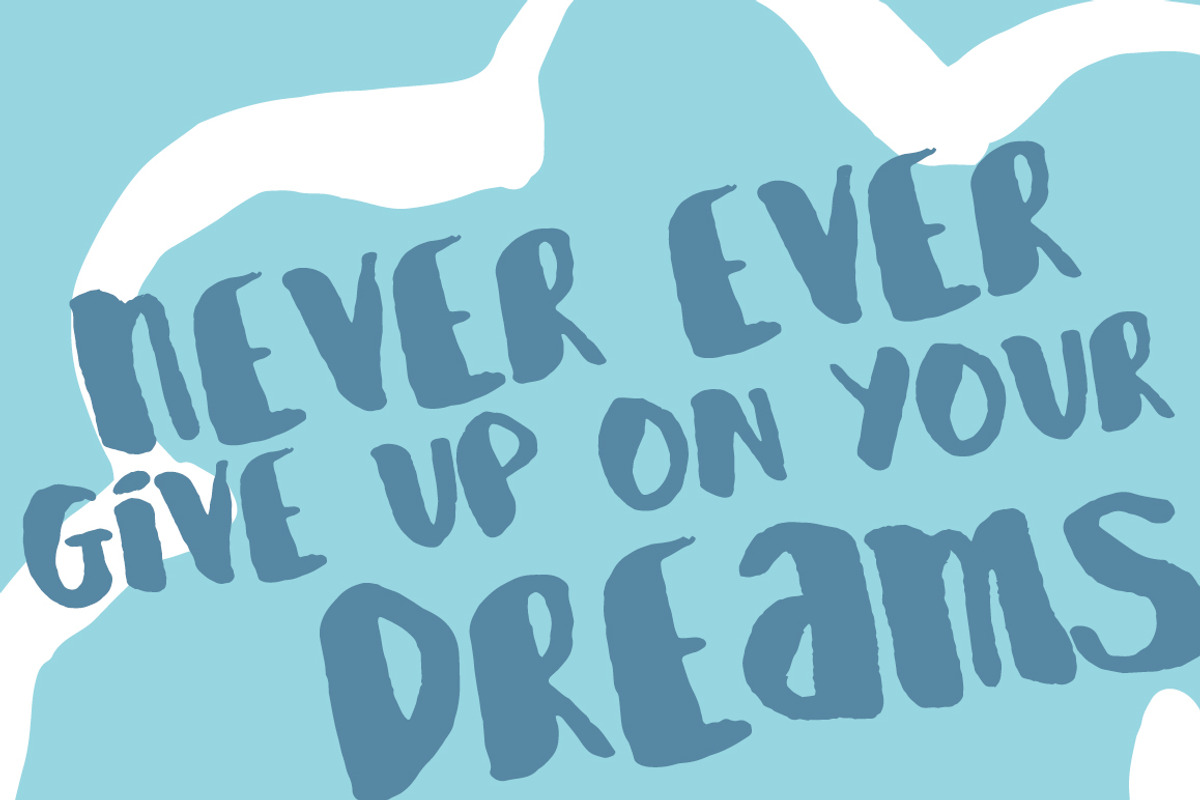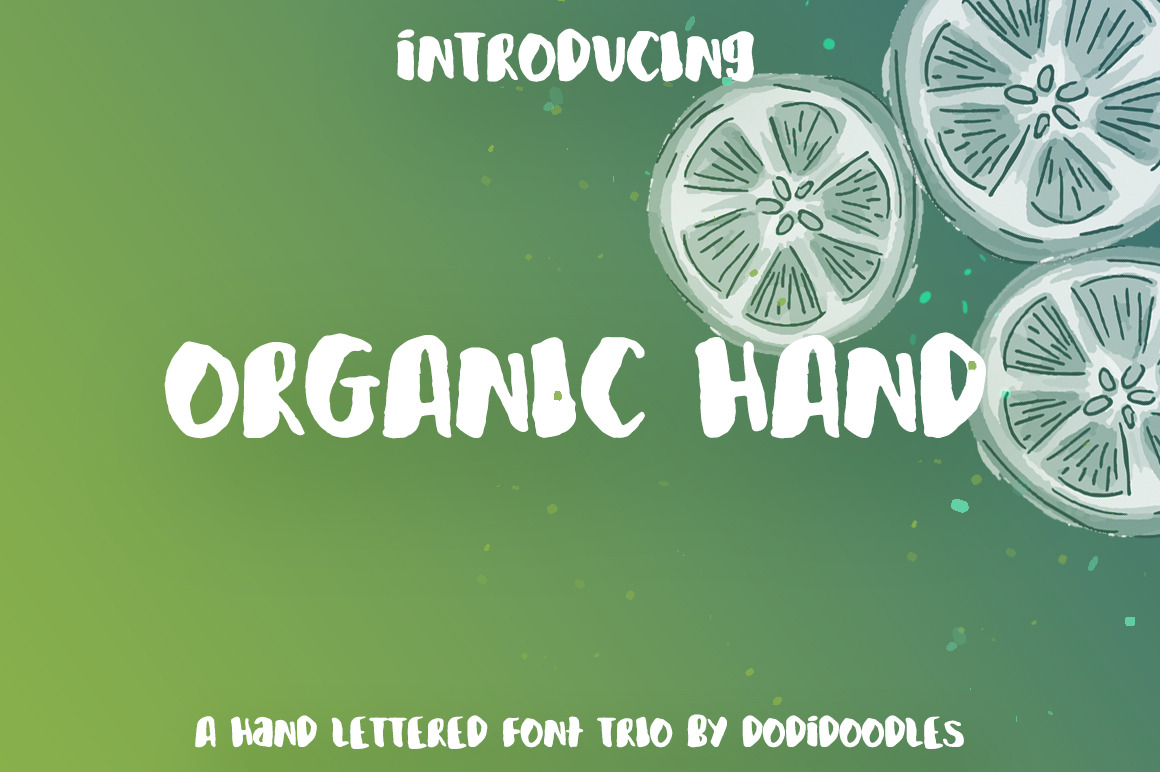
Organic Hand Font Trio
I'm so excited to bring you the Organic Hand Font Trio! This collection started completely by hand in my drawing notebook with a Copic marker. It's bumpy marker lines and uneven strokes make it absolutely adorable for marketing, as well as for brilliant typography pieces.
With your purchase, you'll receive Organic Hand, Organic Hand Alternate, and Organic Hand Extras. Organic Hand serves as your base all caps font. Organic Hand Alternate has many of the same letters as Organic Hand, but with certain letters traded out for lowercase alternatives. Organic Hand Extras is a great collection of hand doodles and scrolls that compliment the fonts. There are both pre-made scrolls for ease of use and 3 empty sizes so that you can create your own words!